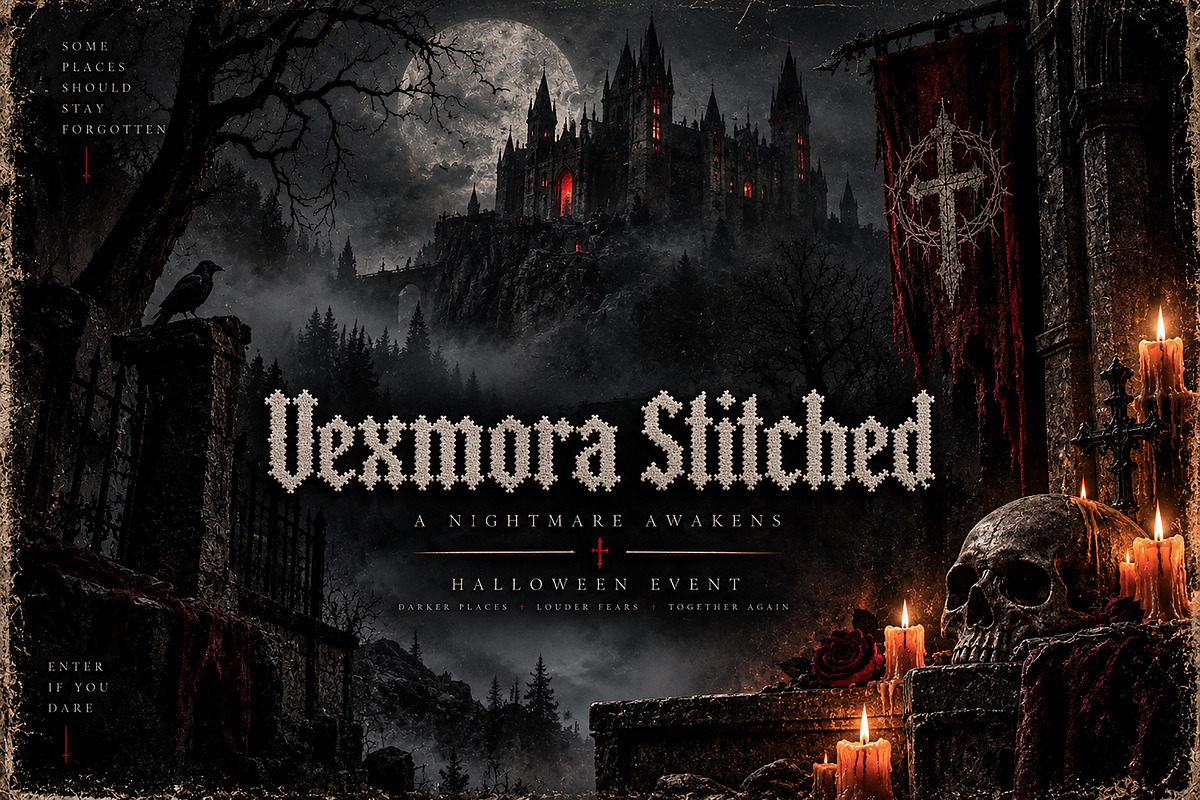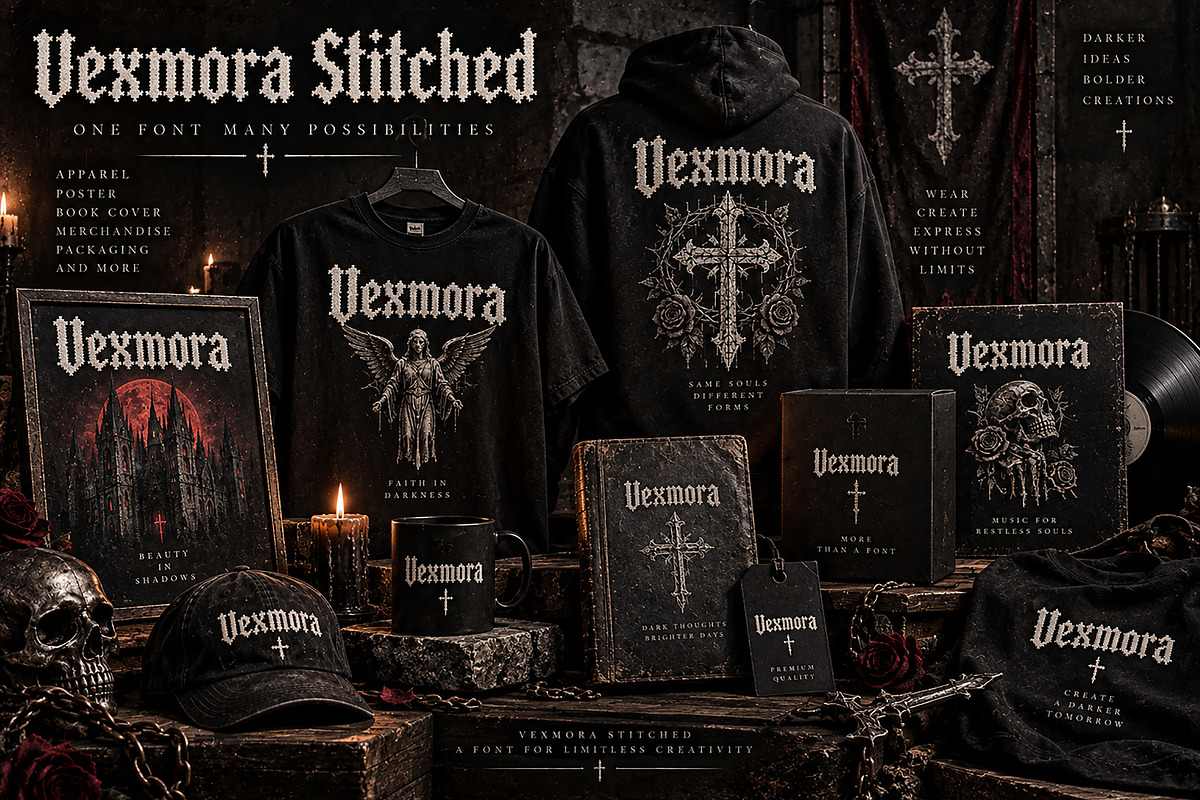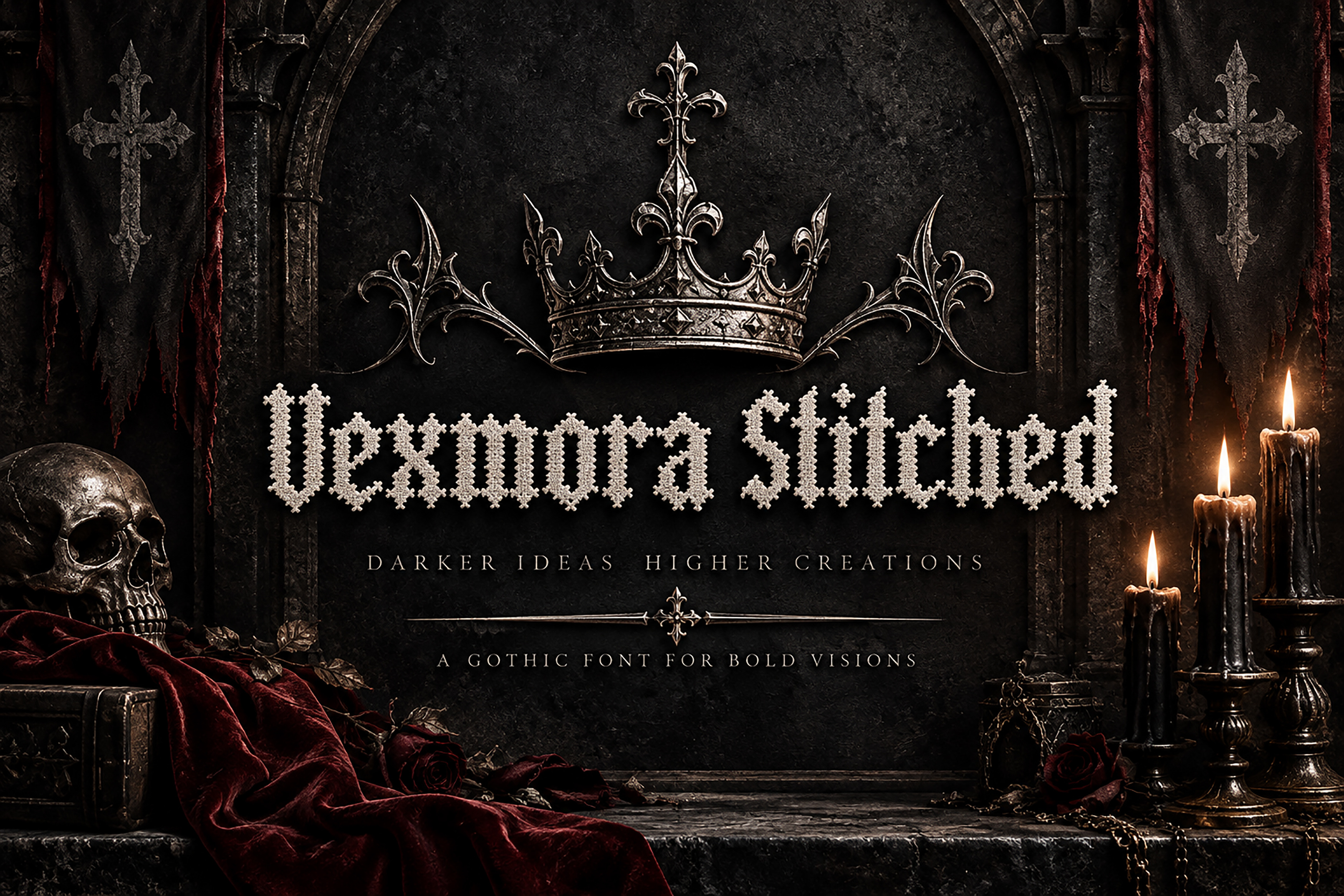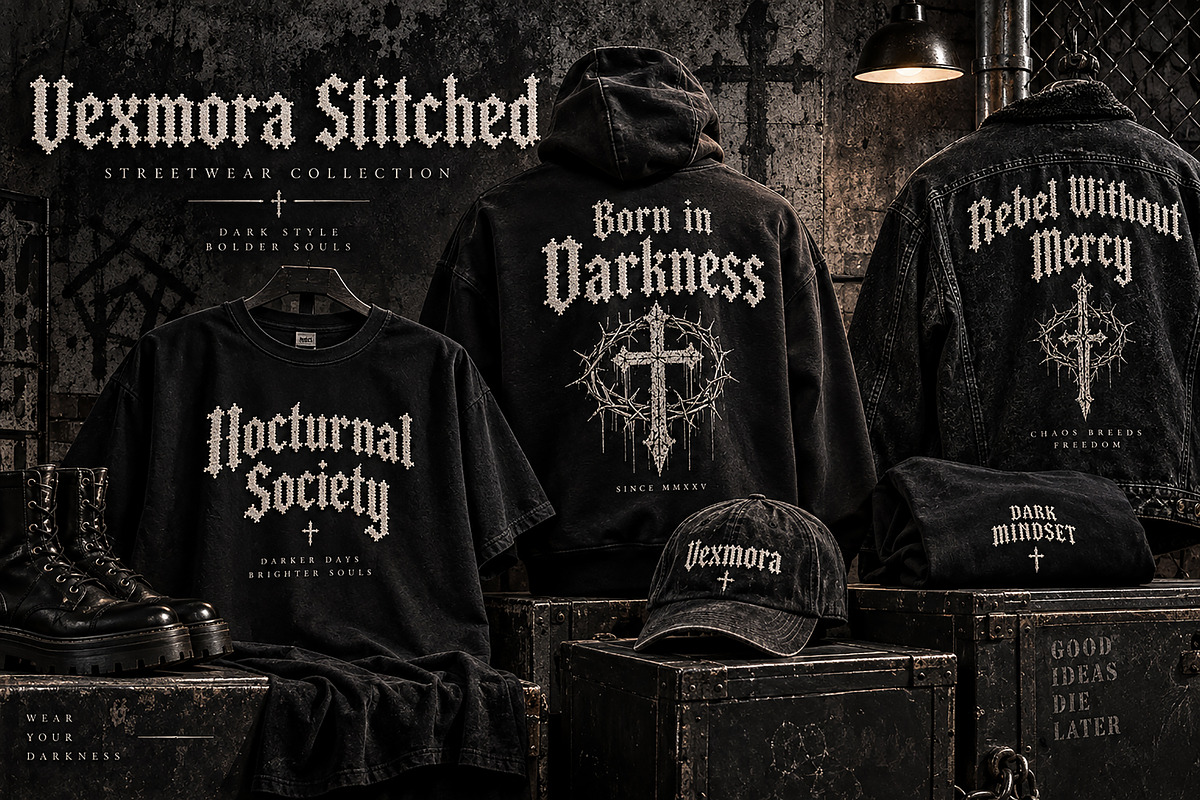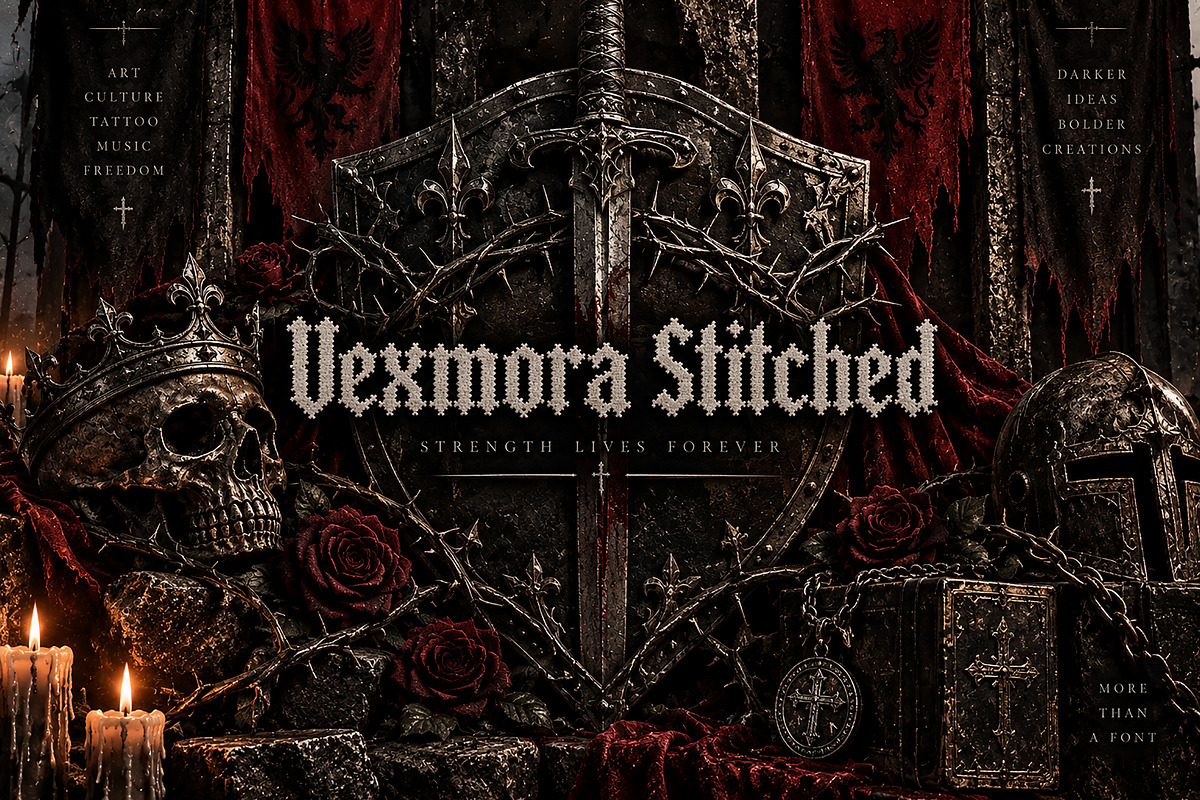
Vexmora Stitched – Distressed Font
Vexmora Stitched – Gothic Blackletter Distressed Font
Vexmora Stitched is a bold and distinctive Gothic Blackletter display font featuring a unique distressed, stitched-inspired texture. Its dark medieval character and rough handcrafted appearance make it perfect for designs that need an edgy, mysterious, and powerful visual identity.
Designed to make a strong impact at display sizes, Vexmora Stitched works beautifully for streetwear graphics, Gothic branding, band logos, tattoo artwork, horror posters, Halloween designs, album covers, apparel, labels, packaging, book covers, merchandise, and dark fantasy projects.
The textured detailing gives every word an authentic vintage and handcrafted feel while maintaining the dramatic presence of classic Blackletter typography.
Gothic & Dark Branding
Streetwear & Apparel
T-Shirt & Hoodie Designs
Band & Music Artwork
Metal & Rock Designs
Tattoo Designs
Horror & Halloween Graphics
Medieval & Dark Fantasy Projects
Album & Poster Designs
Book & Cover Artwork
Logos & Labels
Packaging & Merchandise
Vintage & Distressed Designs
Alternative & Underground Artwork
Bold Gothic Blackletter style
Distressed stitched-inspired texture
Strong medieval and vintage character
Excellent for impactful display typography
Ideal for branding and merchandise
Suitable for both print and digital design
Works well for dark, edgy, and alternative aesthetics
Bring a darker, bolder, and more distinctive personality to your next design with Vexmora Stitched.